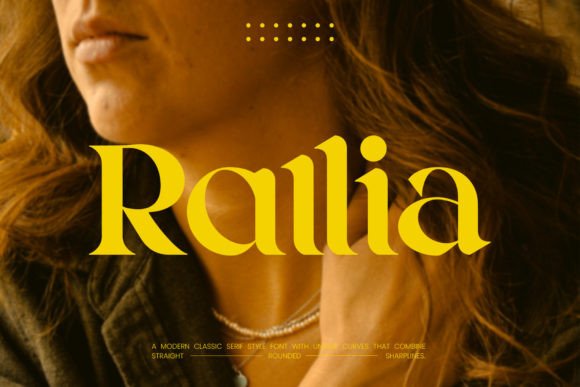
Discover Rallia Font, the epitome of elegance and sophistication. Step into a realm of timeless beauty, where classic serif strokes dance harmoniously with a symphony of unique curves. Witness the captivating fusion of straight, rounded, and sharp lines, each carefully crafted to evoke a sense of admiration and awe.
Inspired by the allure of bygone eras and the modernity of today, Rallia Font stands as a testament to the enduring power of timeless design. Its intricate details and graceful flourishes capture the essence of elegance, while its clean lines and sharp angles add a touch of contemporary flair.
Immerse yourself in the versatility of Rallia Font, a font that effortlessly adapts to a myriad of design endeavors. From the delicate curves of monograms to the bold statements of logos, Rallia Font has the uncanny ability to transform ordinary designs into extraordinary masterpieces.
With its PUA encoding, unleash the full potential of Rallia Font. Access a world of enchanting glyphs and ligatures, adding depth and intrigue to your creative projects with a simple click.
Elevate your designs to new heights with Rallia Font. Let its refined beauty captivate audiences, leaving an indelible mark of sophistication and grace. Experience the magic of Rallia Font today, and embark on a journey of design excellence.